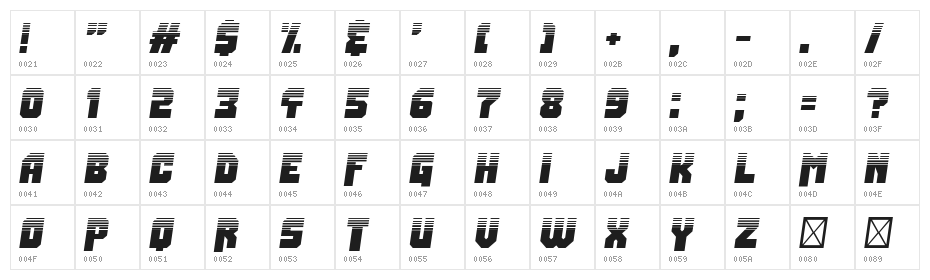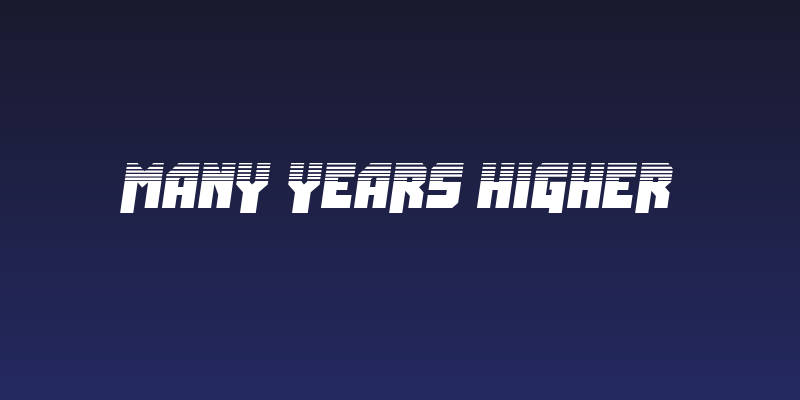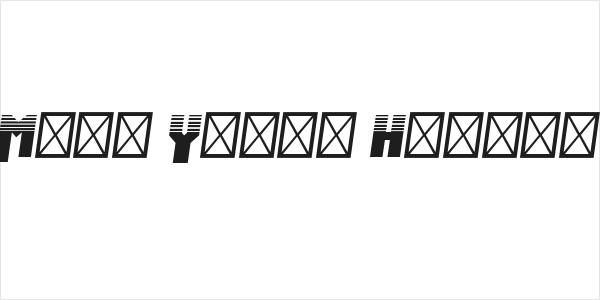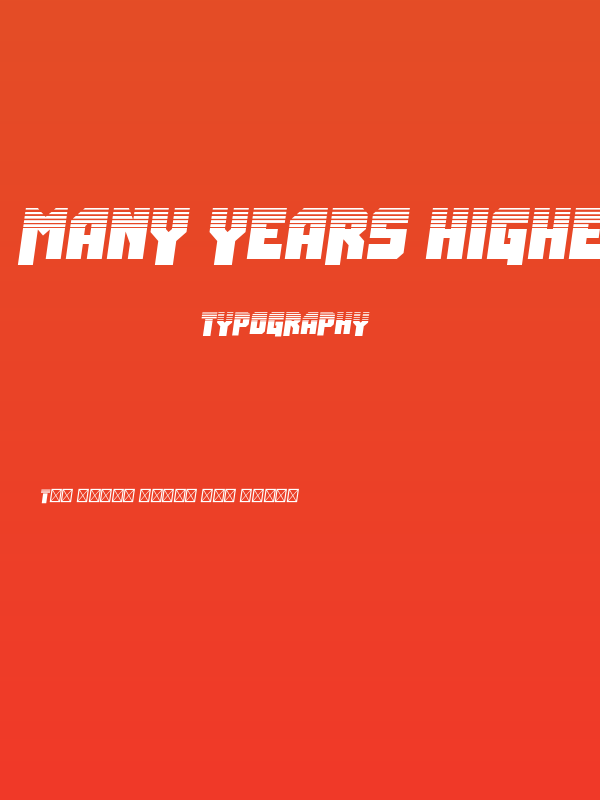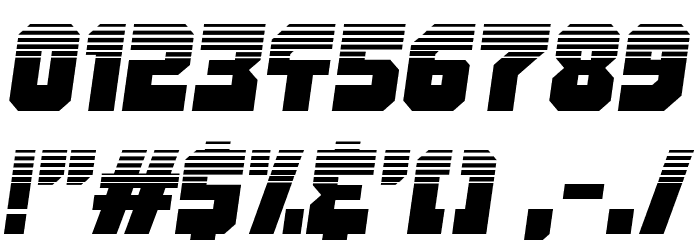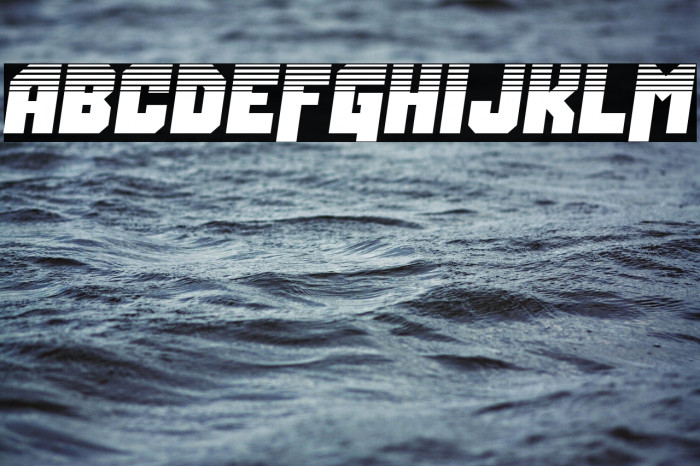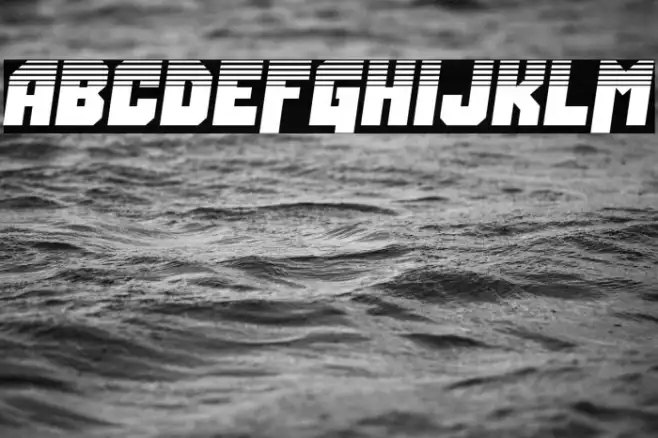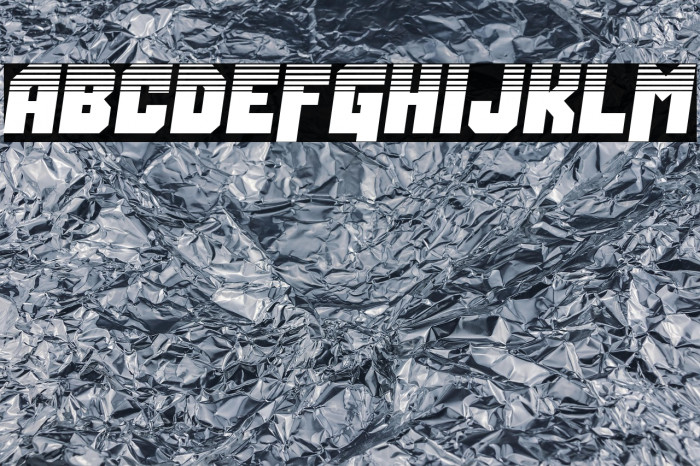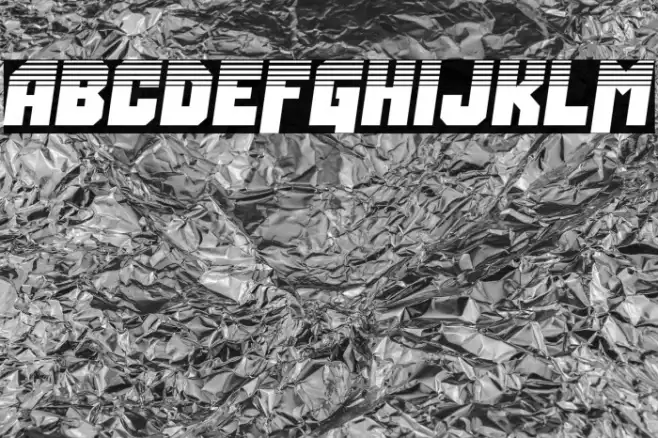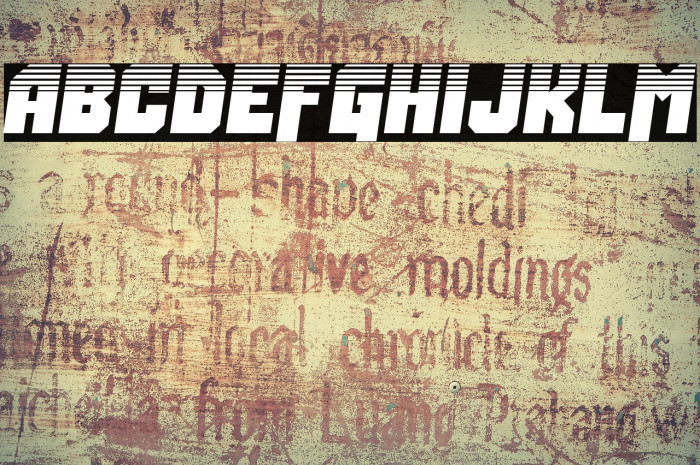
Many Years Higher Font
Many Years Higher Description
This font features a bold and dynamic design with a futuristic and sporty aesthetic. The characters are constructed with sharp, angular lines and a distinctive striped pattern at the top, giving a sense of movement and speed. The uppercase and lowercase letters maintain a consistent style, with the numerals and special characters following suit. The overall appearance is striking and modern, making it suitable for attention-grabbing headlines and branding that requires a strong visual impact.
| Proposed Projects | Ideal for sports branding, futuristic designs, video game titles, and dynamic posters. |